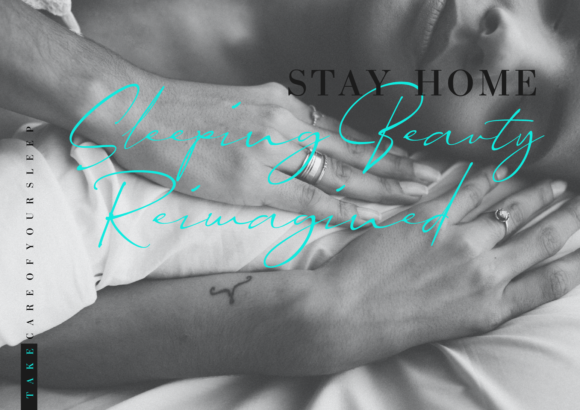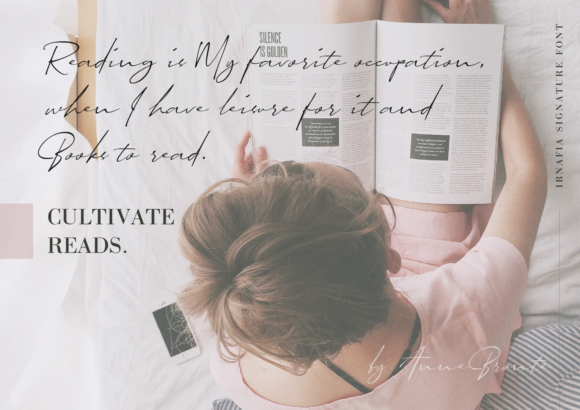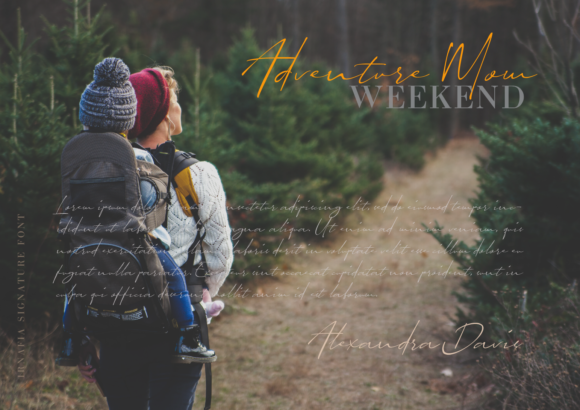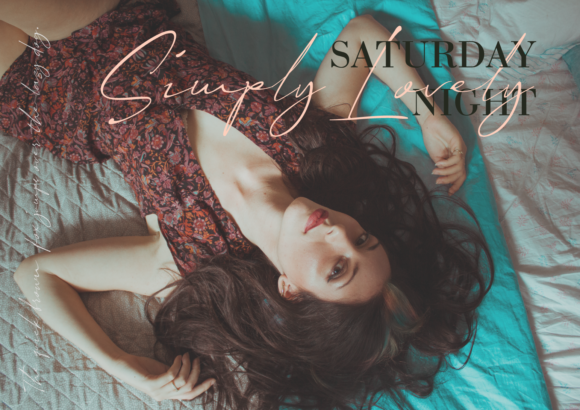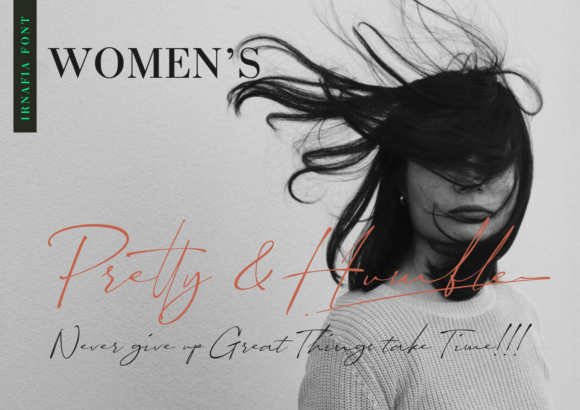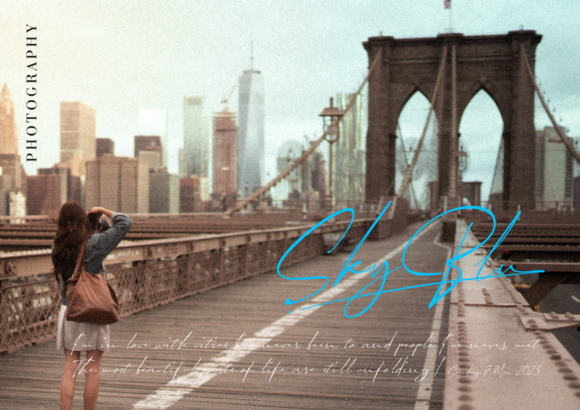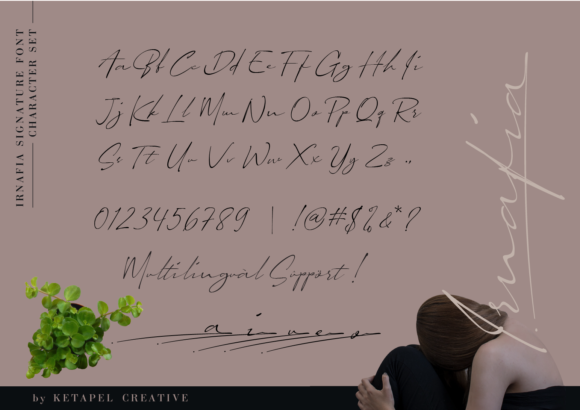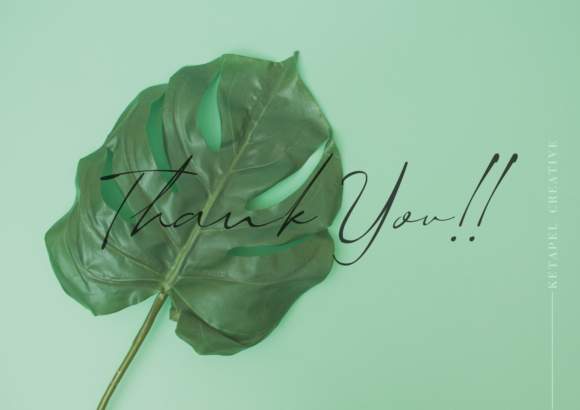
Irnafia Font
About Irnafia Font
Irnafia is stylish and elegant handwritten font. It’s the perfect font for wedding invitations, stationery, photography, social media posts, product packaging, logo designs, greeting cards, and much more!